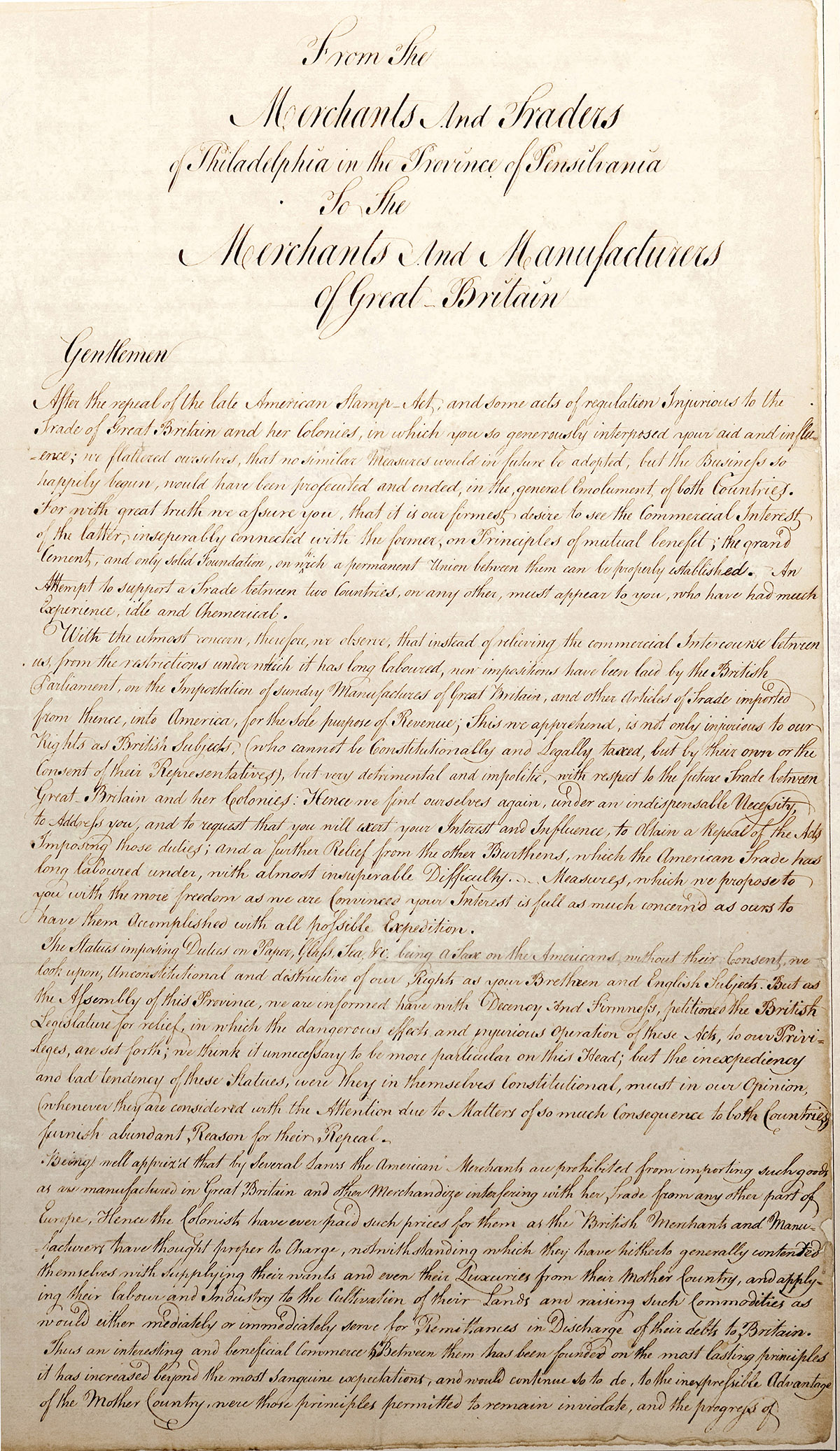
Remsen Script font
The Remsen Script Broadside
Remsen Script Font
Colonial American broadside
Remsen Script Broadside, Page 1
Remsen Script Font
Letter from 1825